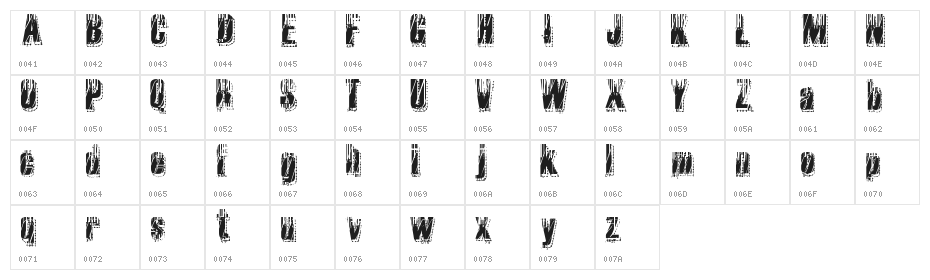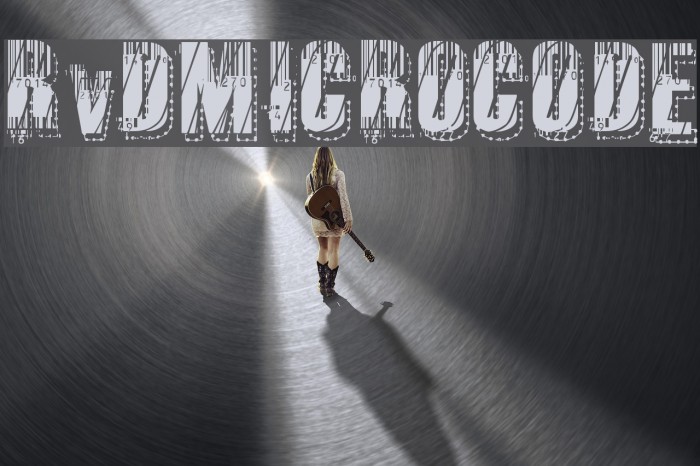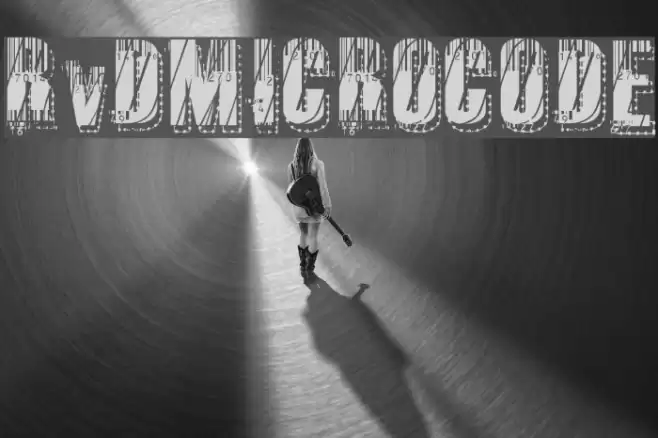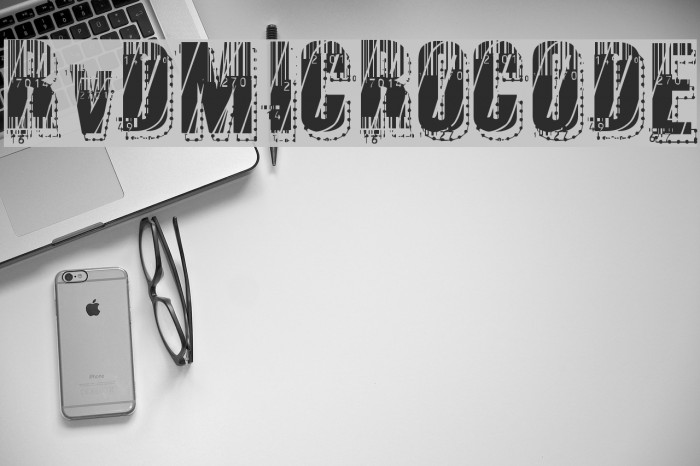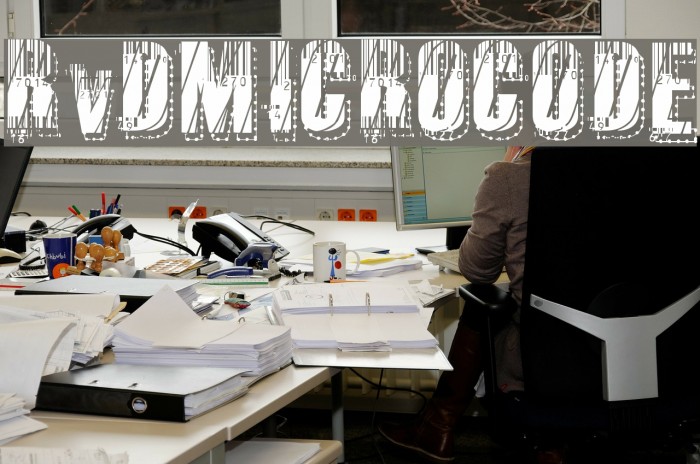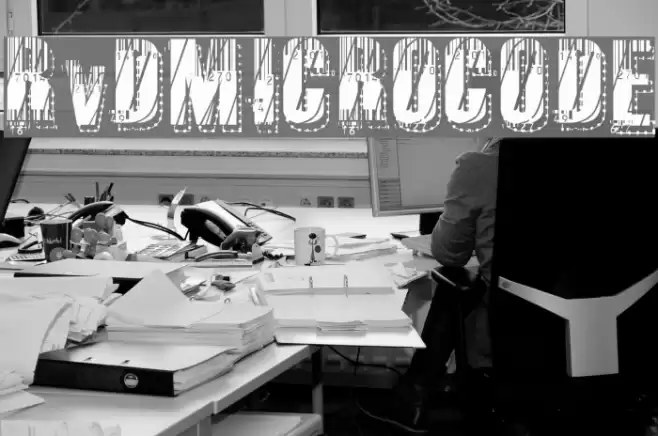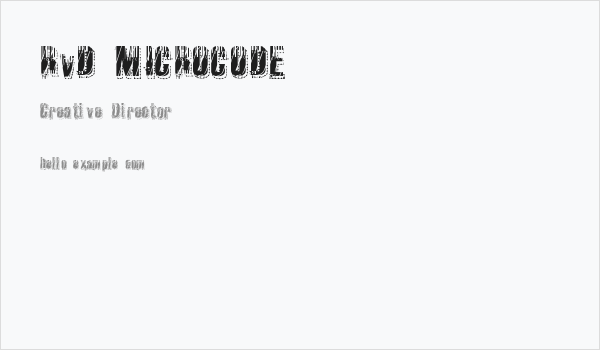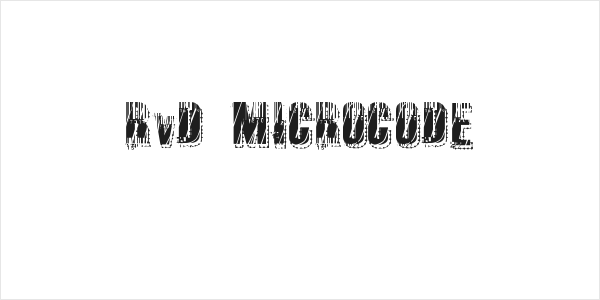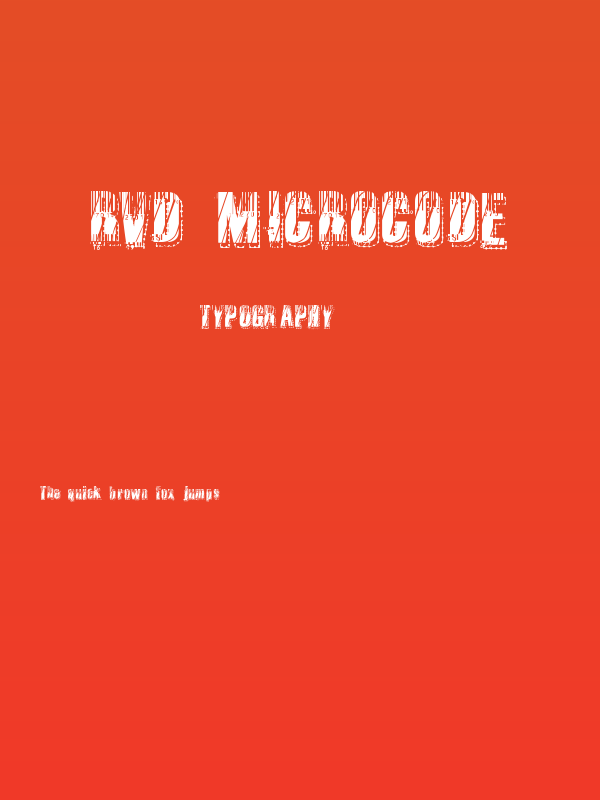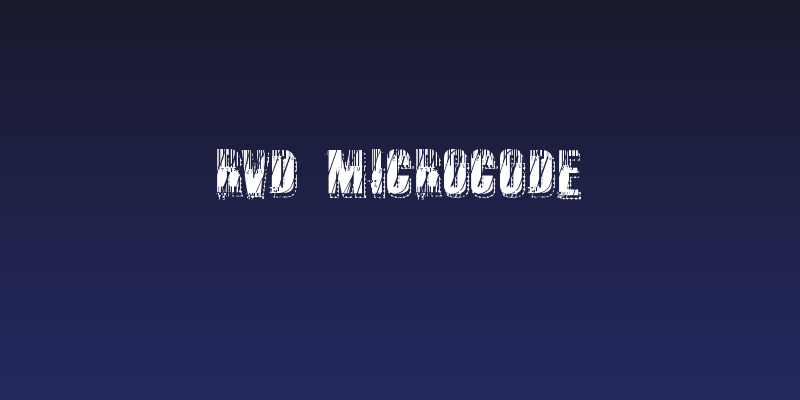
RvD_MICROCODE Font
RvD_MICROCODE Description
This font features a bold and striking design with a distressed, glitch-like texture that gives it a modern and edgy appearance. The characters are bold and wide, with a unique pattern that resembles digital noise or static, adding a sense of movement and energy. The uppercase and lowercase letters maintain a consistent style, with sharp edges and a slightly condensed form. The numbers and special characters follow the same aesthetic, ensuring a cohesive look across all text elements. This font is ideal for projects that require a futuristic or tech-inspired theme, making it perfect for digital art, posters, and branding materials that aim to stand out.